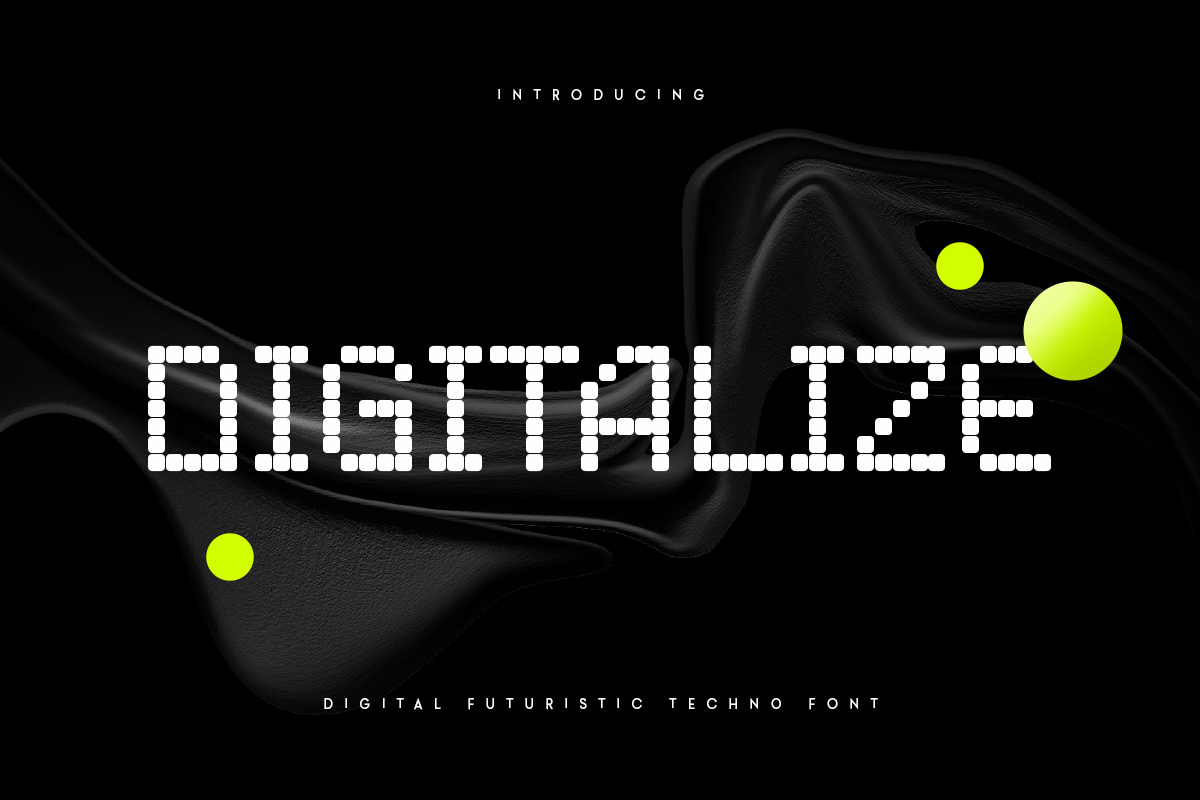
Digitalize - Digital Techno Font
Transform your designs with this cutting-edge digital pixel techno font that screams futuristic perfection. Digitalize is a Digital Futuristic Pixel Techno font specially crafted for classic pixel style, gaming, and poster design needs that will elevate your creative projects. This versatile typeface is perfect for adding distinctive style and impactful headline presence to any design. Specially designed with classic styling, NFT aesthetics, and unique character, Digitalize empowers you to creat...